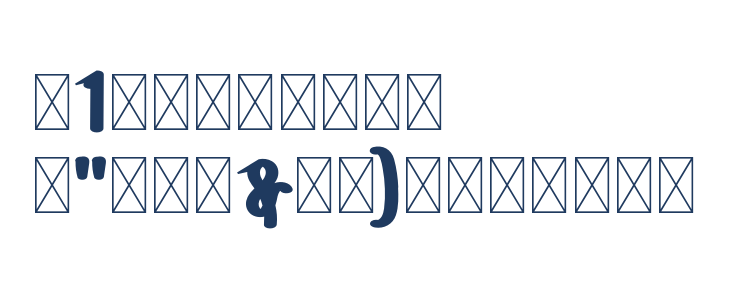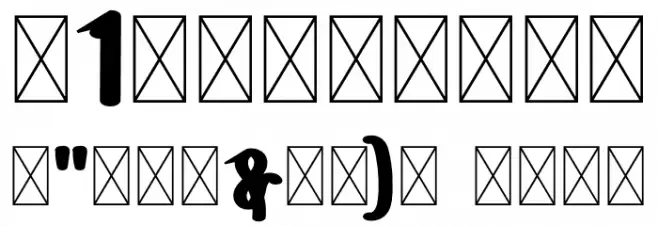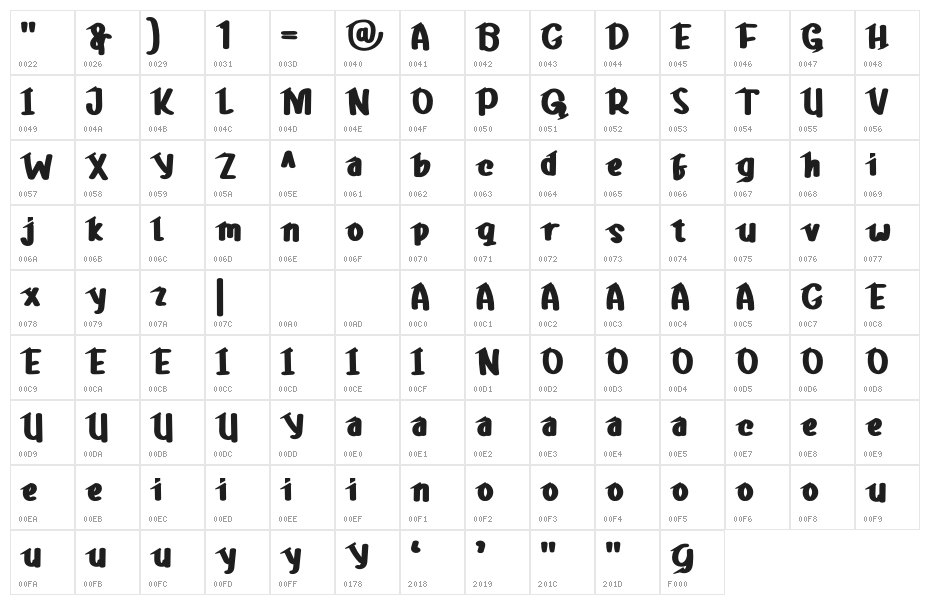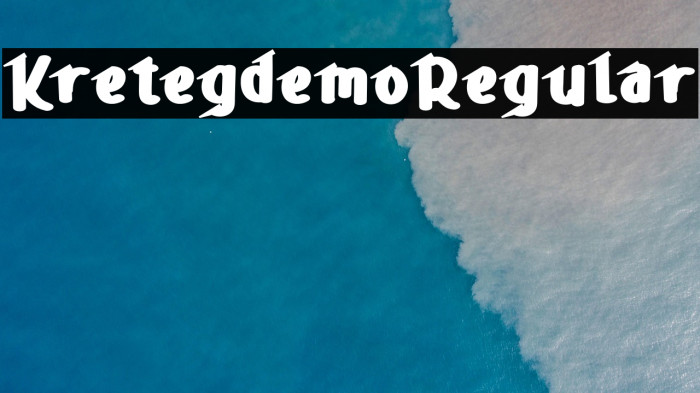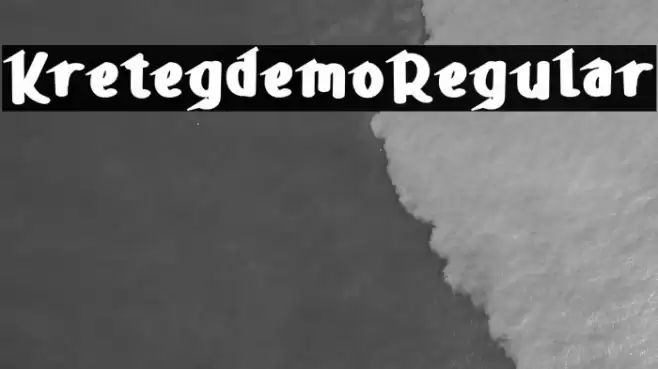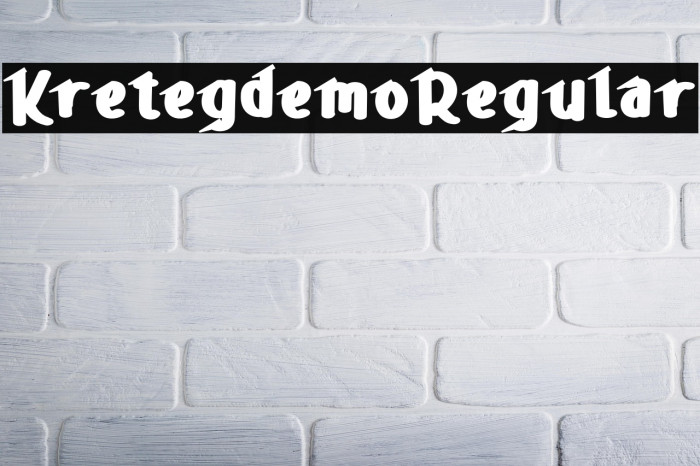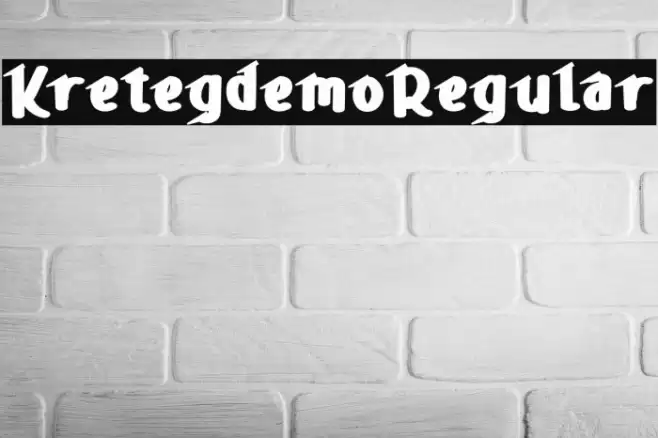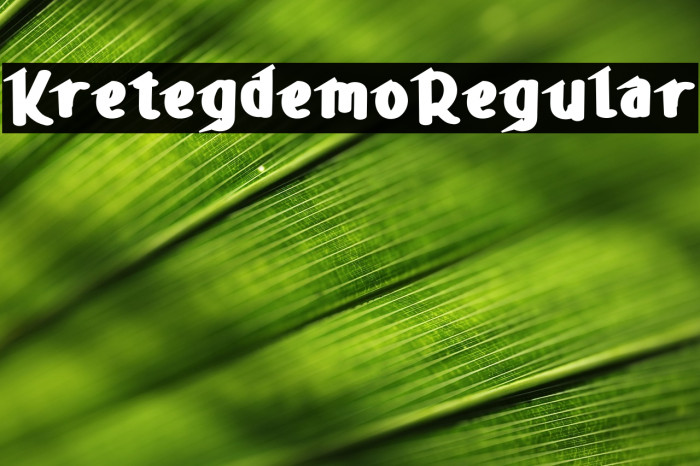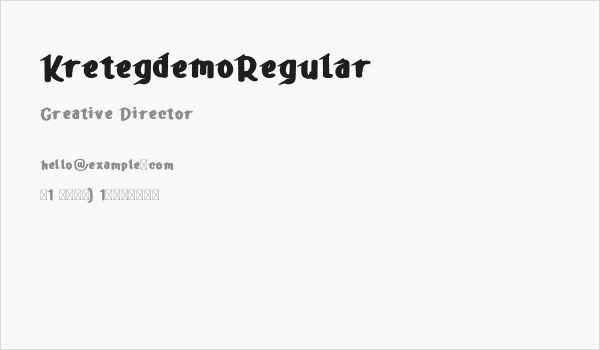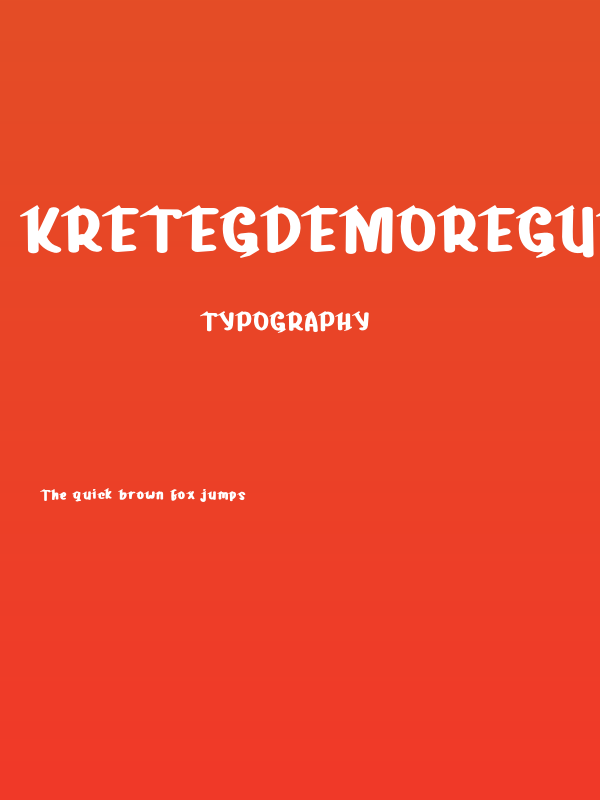
KretegdemoRegular Font
KretegdemoRegular Description
This font features a bold and dynamic style with a strong presence. The uppercase letters are characterized by thick strokes and a slightly condensed form, giving them a powerful and impactful look. The lowercase letters maintain the boldness with a playful twist, incorporating unique curves and angles that add a touch of whimsy. The numbers are equally bold, ensuring they stand out in any context. Special characters are designed with the same boldness, maintaining consistency across the font. The overall design is reminiscent of a modern calligraphic style, blending traditional elements with contemporary flair.
| Overall Style | Modern, Decorative |
| Proposed Projects | Ideal for branding projects, poster designs, and any creative work that requires a strong, eye-catching typeface. |